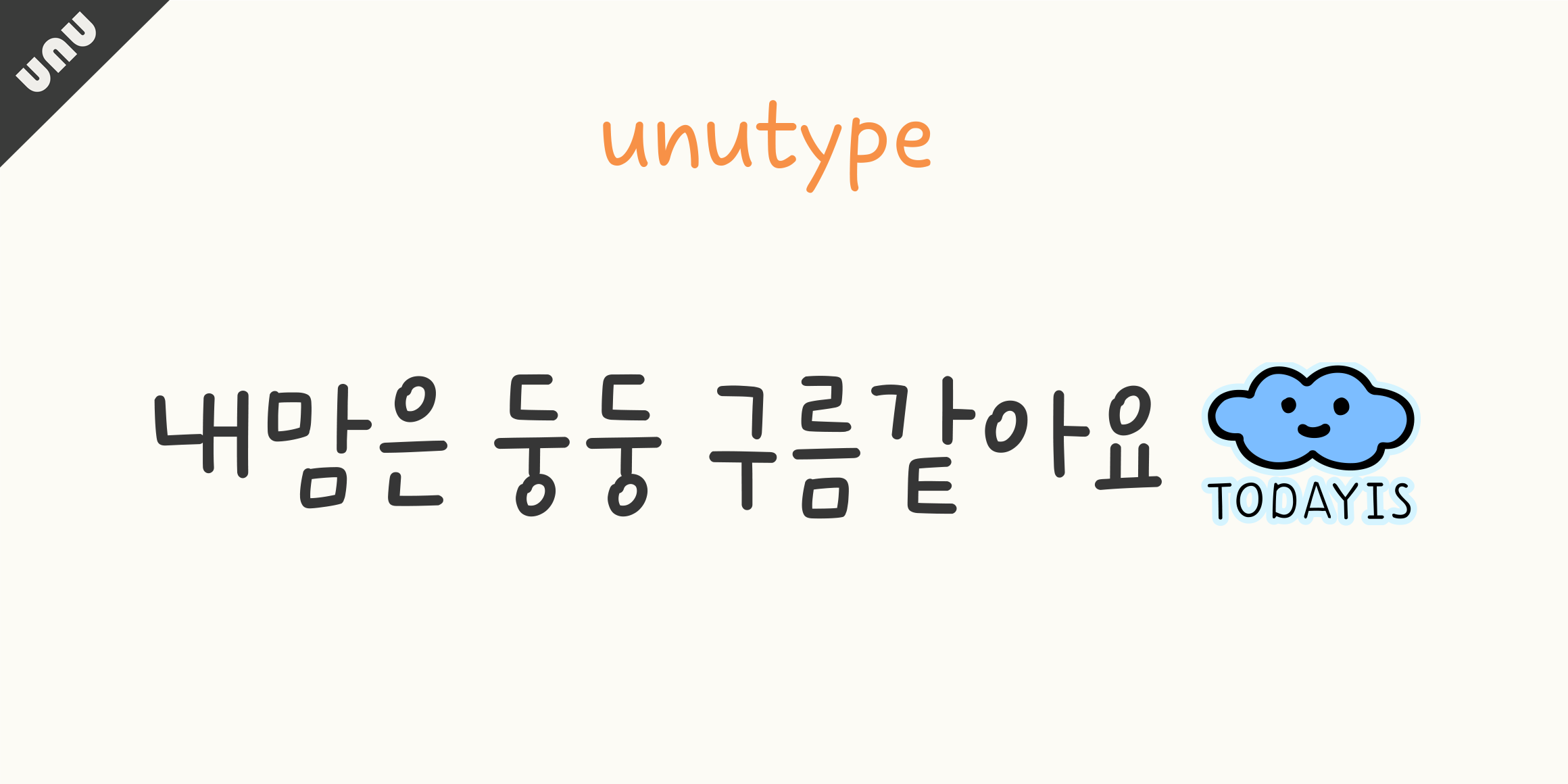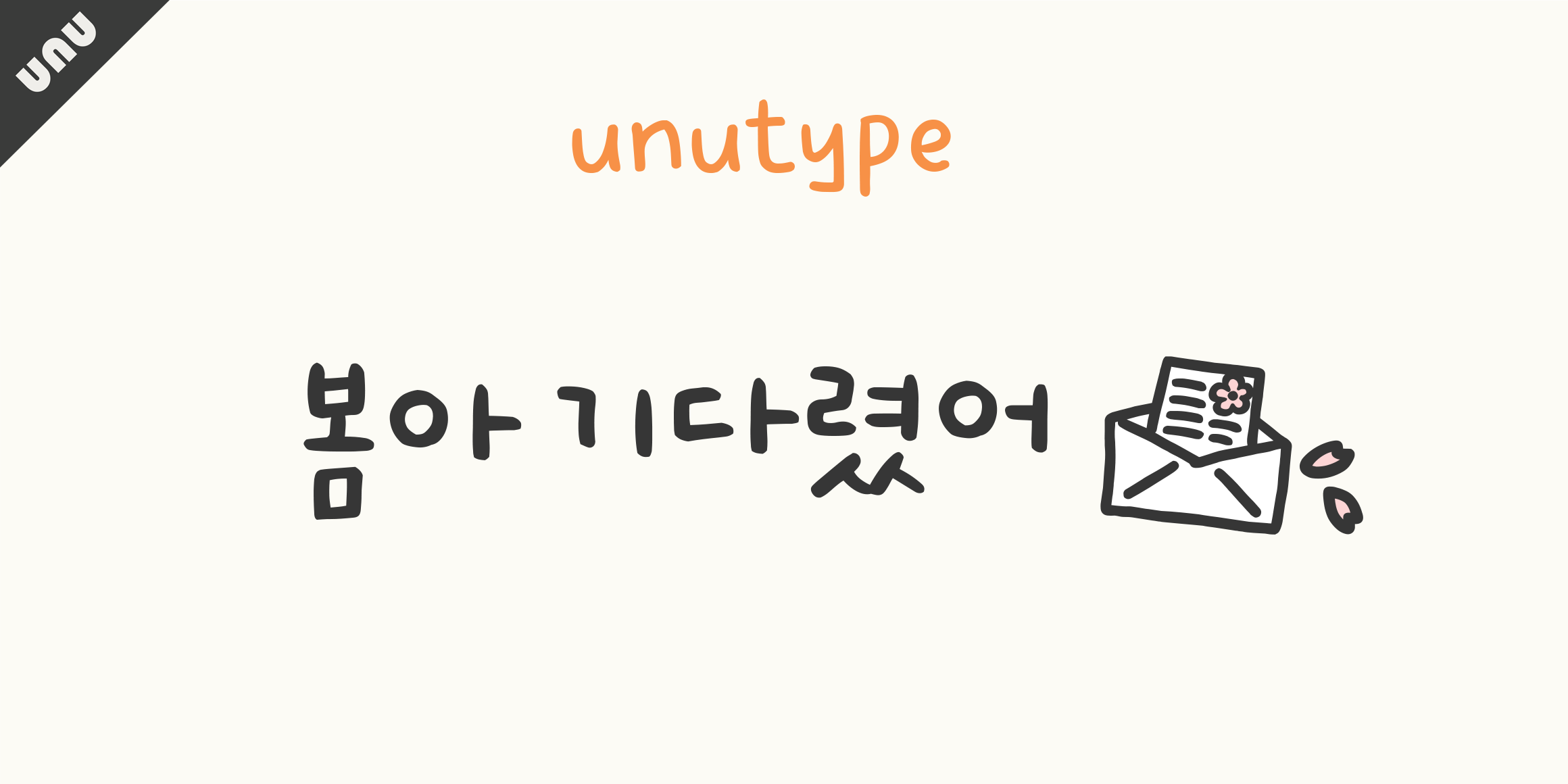
JCloudy
Jikjisoft
JCloudy is a comfortable and soft handwritten font with a neat and tidy appearance.
JCloudy will send you warm messages that comes along with floating on fluffy clouds.
Discover the hidden dingbats featuring the adorable cloud character with various expressions!